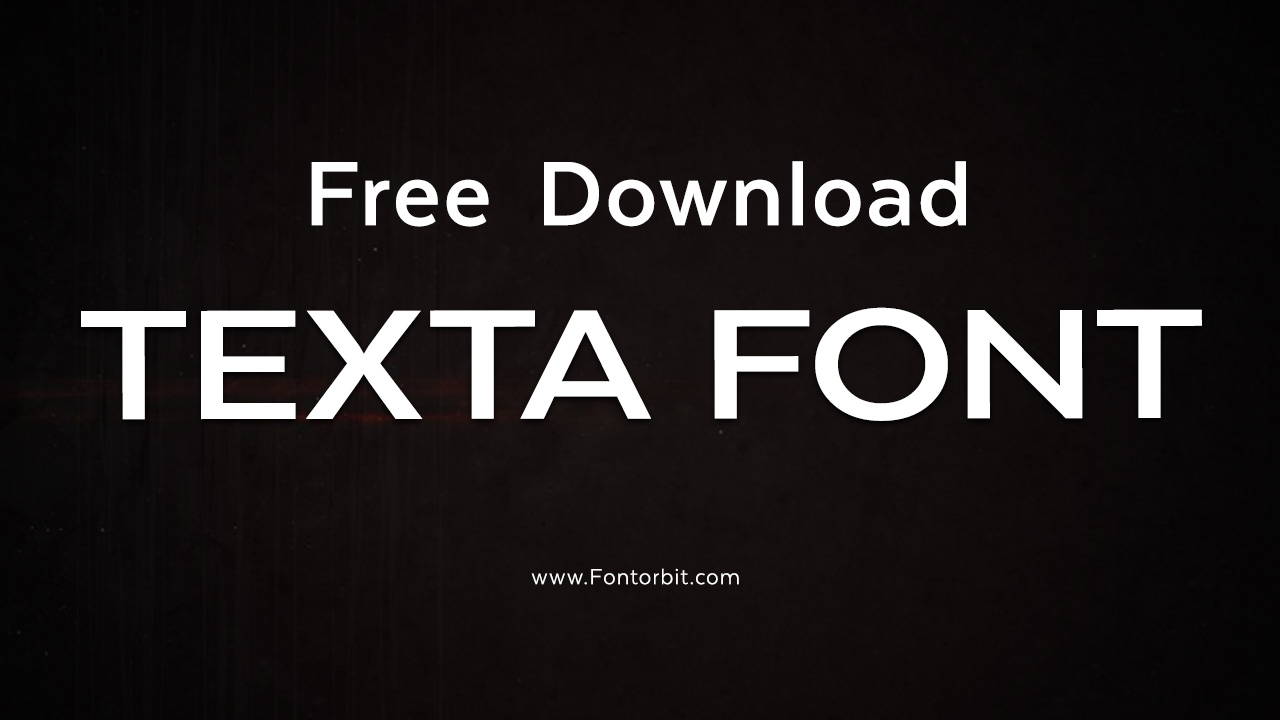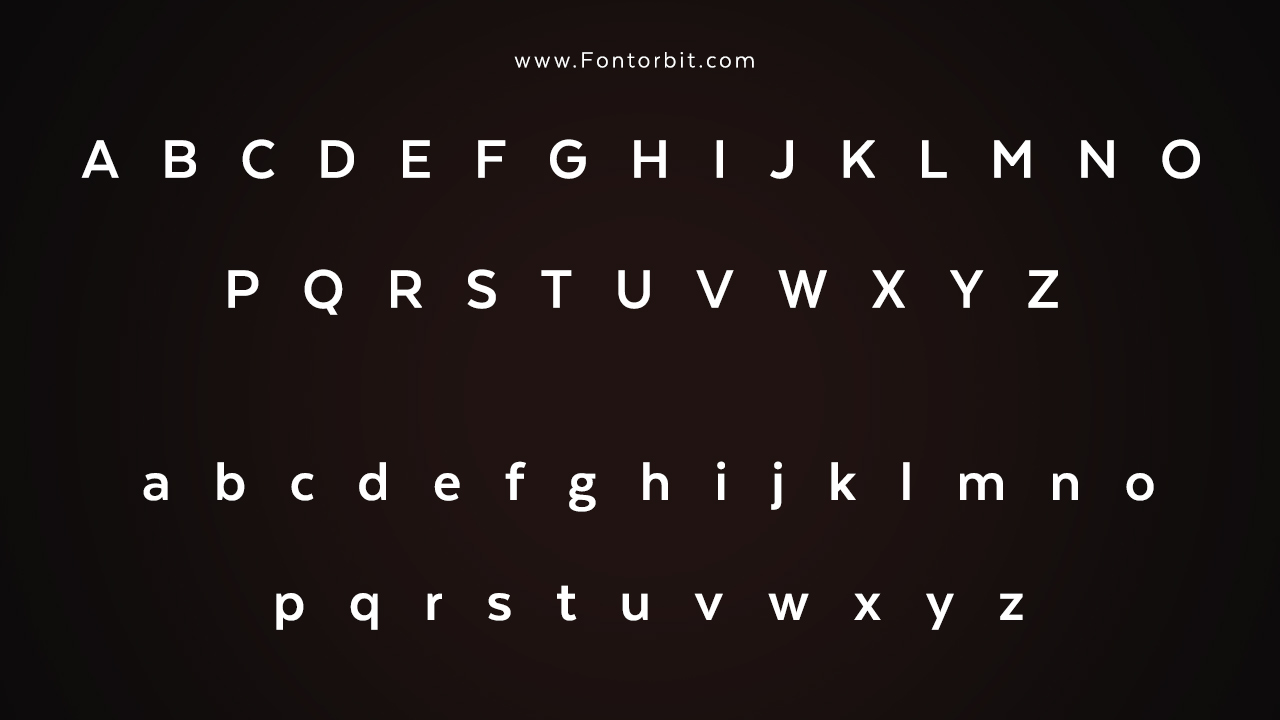
Texta Font is a meticulously designed sans-serif typeface created by the talented Miguel Hernandez and Daniel Hernandez. With its clean lines and modern aesthetic, Texta Font delivers a sophisticated and professional look suitable for a wide range of design projects.
Featuring a range of 32 different variations, including regular, bold, and italic styles, this typeface is versatile and highly functional. It encompasses 109 glyphs and a total of 344 characters, including lowercase letters, symbols, and punctuation marks.
Each version contains a complete set of 344 characters, including uppercase and lowercase letters, numerals, punctuation, and symbols. Texta Font also supports a wide range of languages, thanks to its extensive glyph set.
Design Contexts to Use This Font
Texta Font is ideal for a variety of design contexts:
- blog
- website
- logo design projects
- poster designs
- hotel and store names
- social media posts
- and comic book covers
Texta Font In Use
Texta Font is often chosen for its sleek and professional appearance, making it a popular choice in modern design environments. Its clean lines and bold structure make it perfect for formal documents, digital designs, and corporate branding. Whether used in a professional report or an eye-catching advertisement, Texta Font delivers a contemporary and polished look.
Texta Font stands out as a modern and sleek typeface, perfect for designers seeking a professional and versatile option. Its clean lines and extensive range of styles make it ideal for numerous applications, from formal documents to creative digital designs. Whether you’re working on a corporate project or a trendy social media campaign, Texta Font provides a sophisticated and contemporary touch.
1.What Are The Recommended Font Sizes For Texta Font?
Texta Font is best used in sizes 18pt and above for headlines and 12pt to 16pt for body text, ensuring optimal readability and visual impact.
2.How To Create A Cohesive Design Using Texta Font?
Combine Texta Font with other sans-serifs or minimal serifs to maintain readability and balance. Use consistent sizes and spacing to harmonize its modern style with other design elements.
4.What Are The Best Pairings For Texta Font?
Pair Texta Font with clean serif fonts like Playfair Display or rounded sans-serifs like Nunito for a balanced and complementary look.
5.What Are The Differences Between Texta Font And Other Similar Fonts?
Texta Font features a unique combination of bold and slim characters, offering a modern and professional appearance not found in many similar fonts.
7.What Are The Color Options For Texta Font?
Texta Font works well with high-contrast colors such as black and white, as well as subtle shades for a modern and sophisticated look.